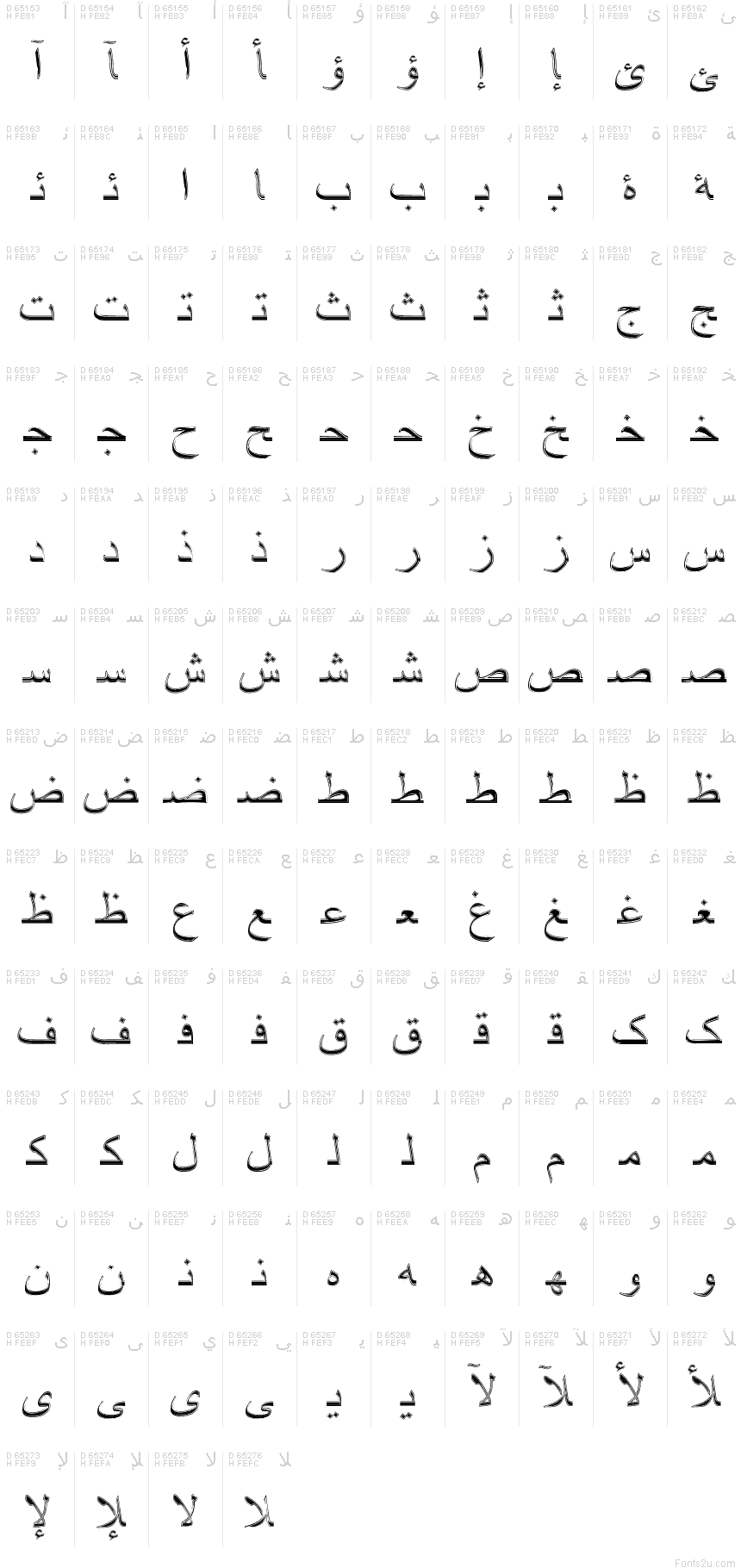
B Sara is a free Arabic font by Borna Rayaneh, with a soft calligraphic style that feels handwritten rather than formal. The letters lean on rounded strokes, low sweeping connections, and compact silhouettes, giving the script a calm, flowing rhythm instead of sharp contrast or rigid geometry.
It fits naturally in cultural posters, book covers, greeting pieces, packaging, and short branding lines where a free font can carry a warm, personal tone. Use it for title cards, mastheads, or brief pull quotes when you want Arabic lettering that feels friendly and continuous, with curves that keep the word shape visually connected.
B Sara font character map
B Sara font character map: Arabic Presentation Forms-B, page 1
Glyphs in the B Sara font — Arabic Presentation Forms-B, page 1